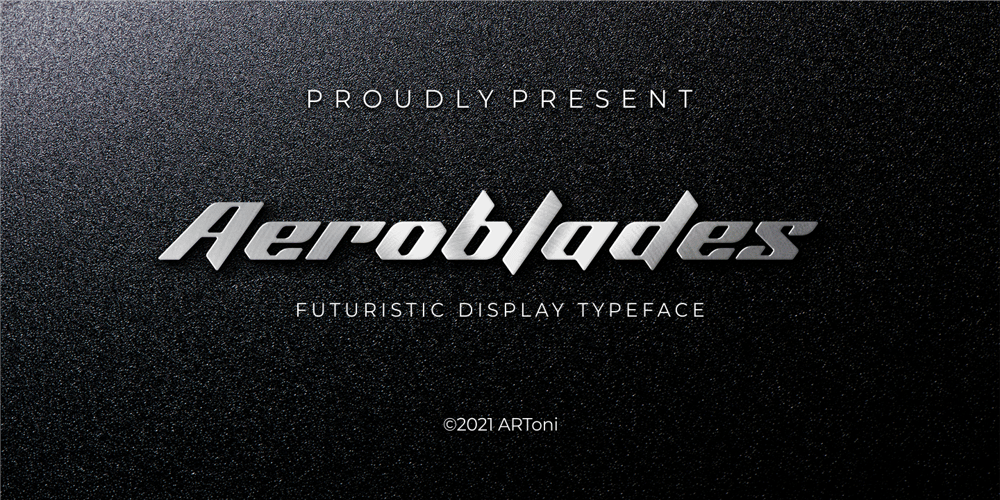
Aeroblades
Aeroblades font
Aeroblades Font Family was designed by Anthonie Van Hayu and published by ARToni. Aeroblades contains 1 styles and family package options. Aeroblades is futuristic display typeface inspired by aerodynamic designs.Fall in love with its incredibly distinct and timeless style and use it to create spectacular designs!